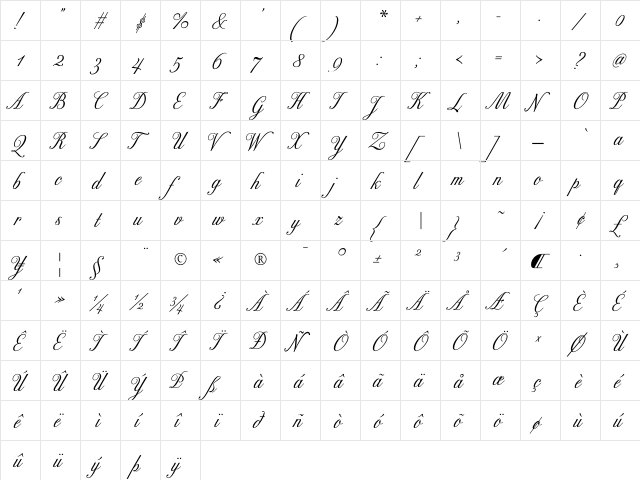
Excelsor Script Bold
| Foundry | Frantisek Storm. stormtype.com |
Design Context for Excelsor Script Typeface
Excelsor Script brings a calligraphic fluidity to the page — its connecting strokes and expressive curves give it an unmistakably human quality. The heavy weight commands attention and anchors typographic hierarchies.
Font Pairing: Combine Excelsor Script with a simple geometric sans for maximum contrast — the tension between flowing curves and clean structure is a classic typographic pairing.
Pro Tip: Use Excelsor Script for short runs of text — names, titles, or taglines. Extended body copy in script faces tires the eye quickly.